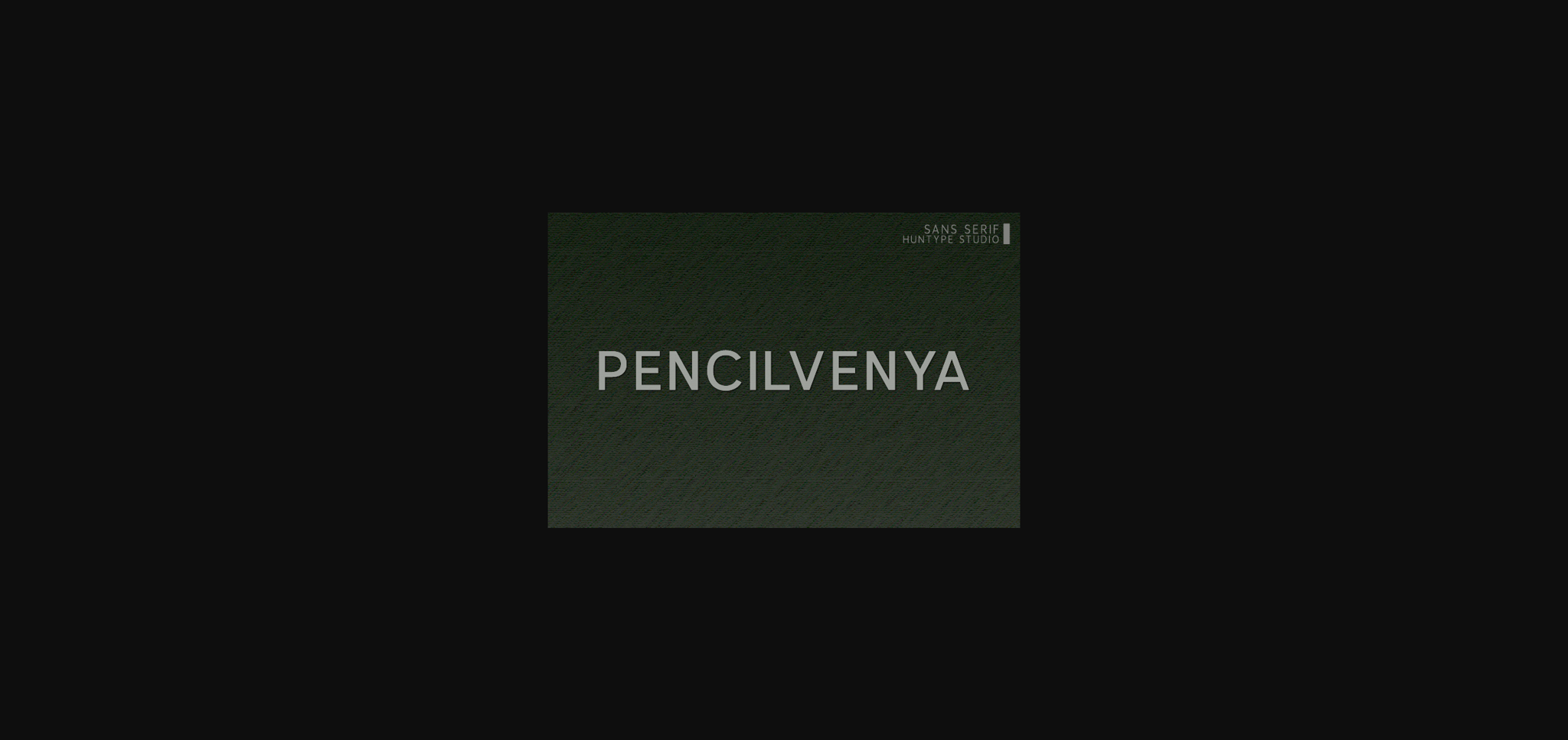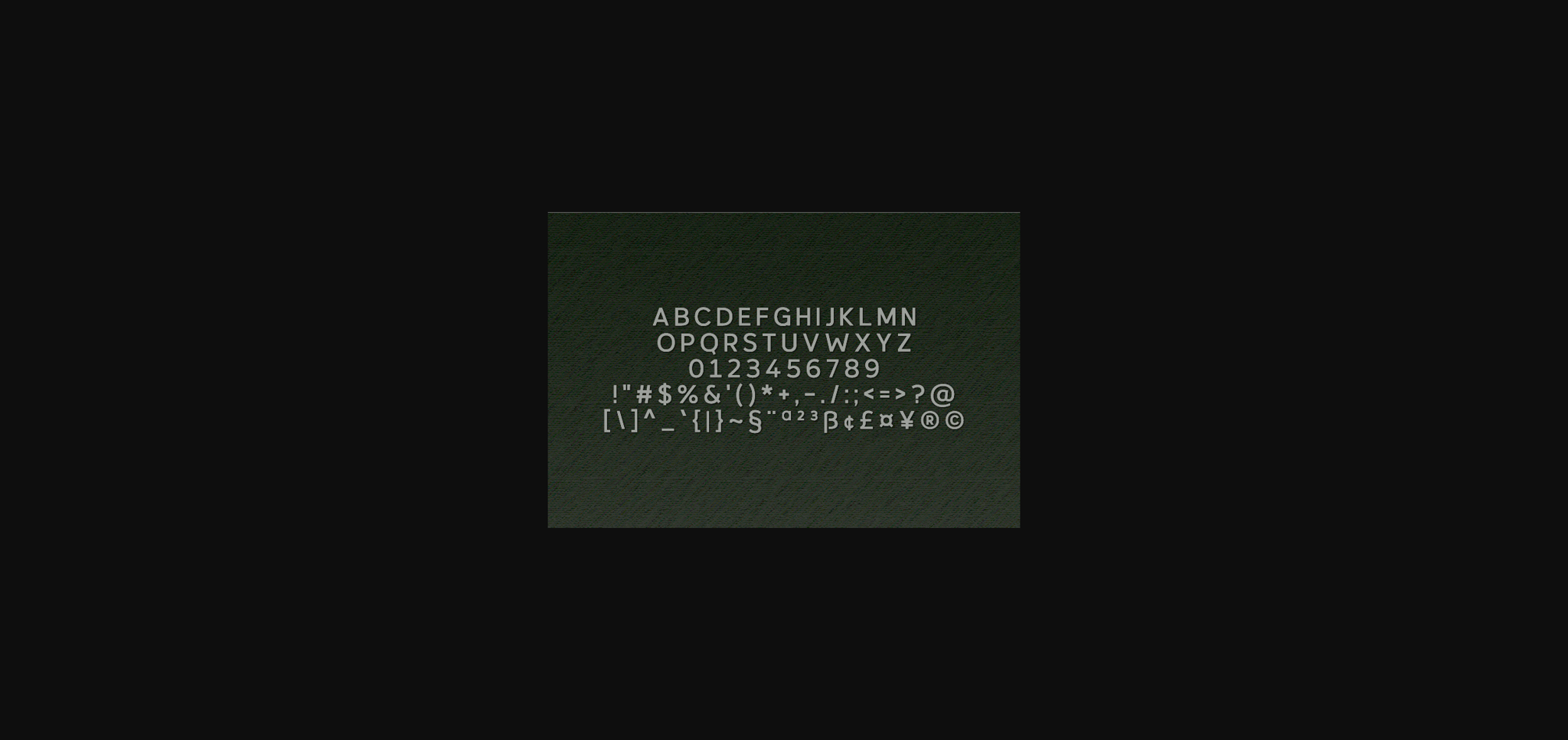
About Pencilvenya Font
Pencilvenya is an all-caps sans serif that is so versatile and looks great in just about any context. With smooth and clean lines and just a touch of contrast, Pencylvenia works beautifully for logos, branding, and web headings.